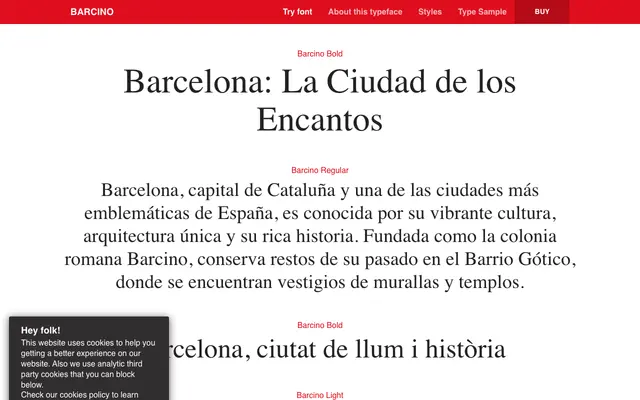
An elegant geometric sans-serif from Typerepublic, named after the Roman colony that became Barcelona, with five weights and an extensive set of OpenType features.
Barcino draws its name and spirit from the Roman origins of Barcelona, channelling geometric forms into a clean, contemporary sans-serif. Five weights run from Thin to Bold, supported by an unusually thorough OpenType feature set including sixteen stylistic sets, oldstyle figures, discretionary ligatures and a slashed zero. The result is a versatile workhorse that retains enough character for editorial and branding work across the weight range.
Barcino is described as a sans-serif inspired by geometric forms, placing it squarely in the geometric sans-serif subcategory with clean, rational proportions.